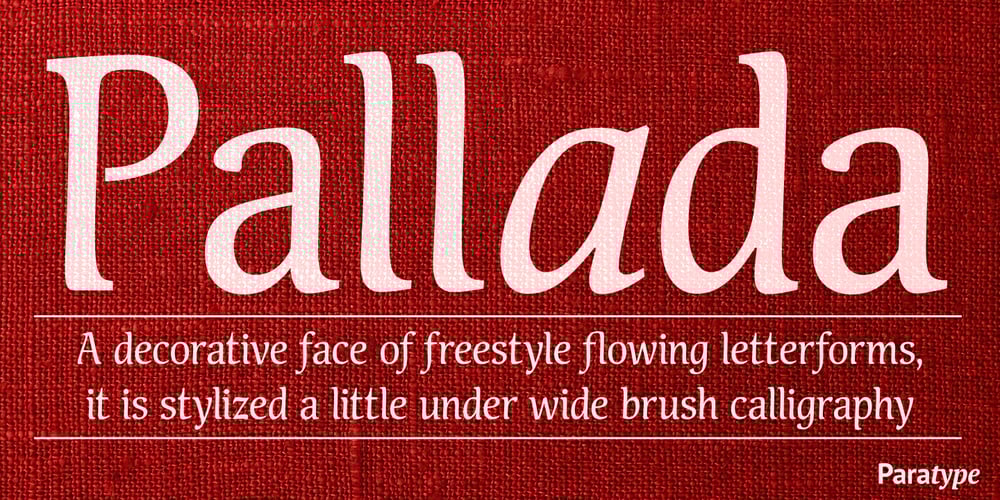
Pallada
Pallada font
Pallada Font Family was designed by Natalia Vasilyeva and published by ParaType. Pallada contains 4 styles and family package options. A decorative face of freestyle flowing letterforms, it is stylized a little under wide brush calligraphy. Its letterforms are characterized with one-side serifs. For use in book heading, advertising and display matter. The face designed by Natalya Vasilyeva and licensed by ParaType in 2007.